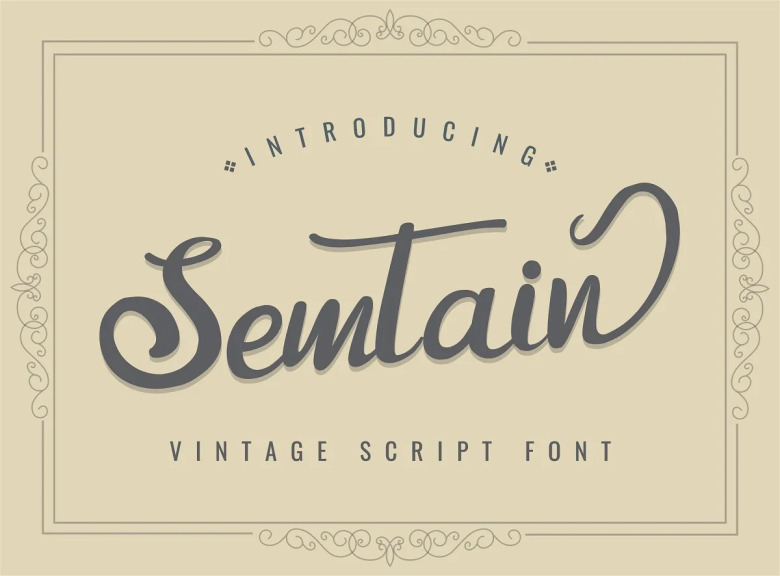
Semtain Font
Semtain is a unique and elegant vintage calligraphy font. It looks beautiful on a variety of designs requiring a personalized style, such as wedding invitations, thank you cards, weddings, greeting cards, logos and so on. This font is PUA encoded which means you can access all of the beautiful glyphs and swashes with ease!
Semtain Calligraphy Script Font